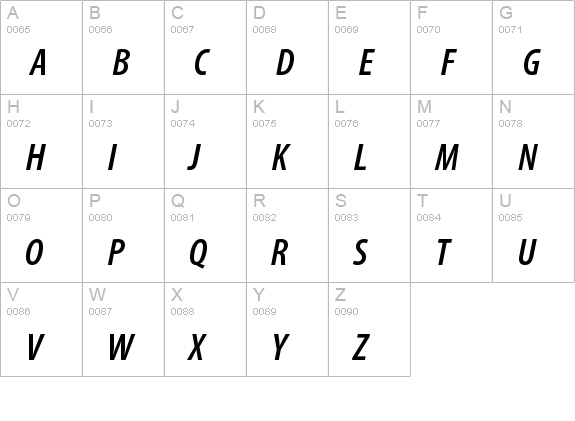
Myriad Pro Semibold Condensed Italic Font Details
Myriad Pro Semibold Condensed Italic is a sub-bold, structured, condensed-width, italic variant in the Myriad typeface family \xE2\x80\x94 well suited to sub-headlines and emphasised passages.
Myriad Pro Semibold Condensed Italic is a modern and versatile font that exudes sophistication and style. Its sleek design and slanted italicized form make it perfect for adding a touch of elegance to any project. The boldness of the semibold weight combined with the condensed style creates a striking visual impact that commands attention. This font is not only visually appealing but also highly functional, making it suitable for a wide range of purposes such as branding, advertising, invitations, and more. Its legibility and readability ensure that your message will be communicated clearly and effectively. And the best part is, Myriad Pro Semibold Condensed Italic is available for free download at FontsMarket.com. So go ahead and elevate your designs with this beautiful and versatile font today!